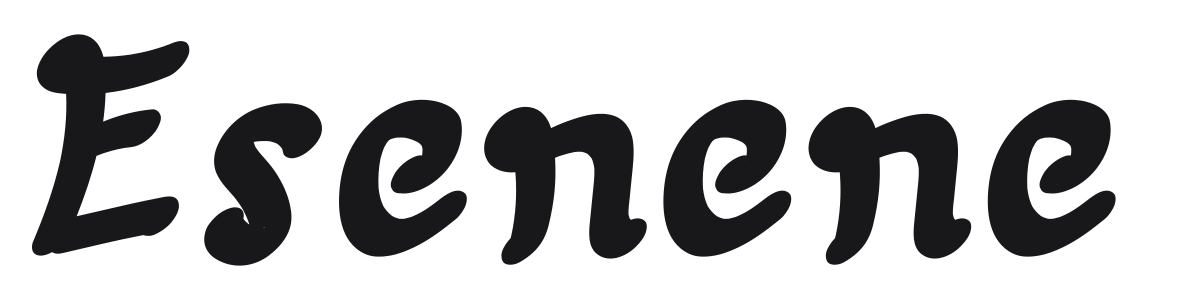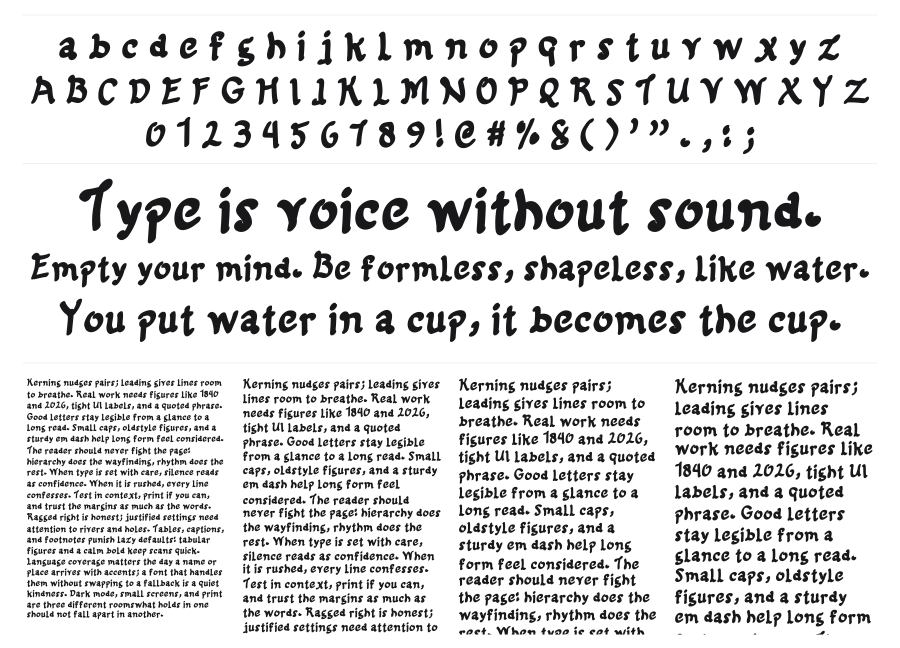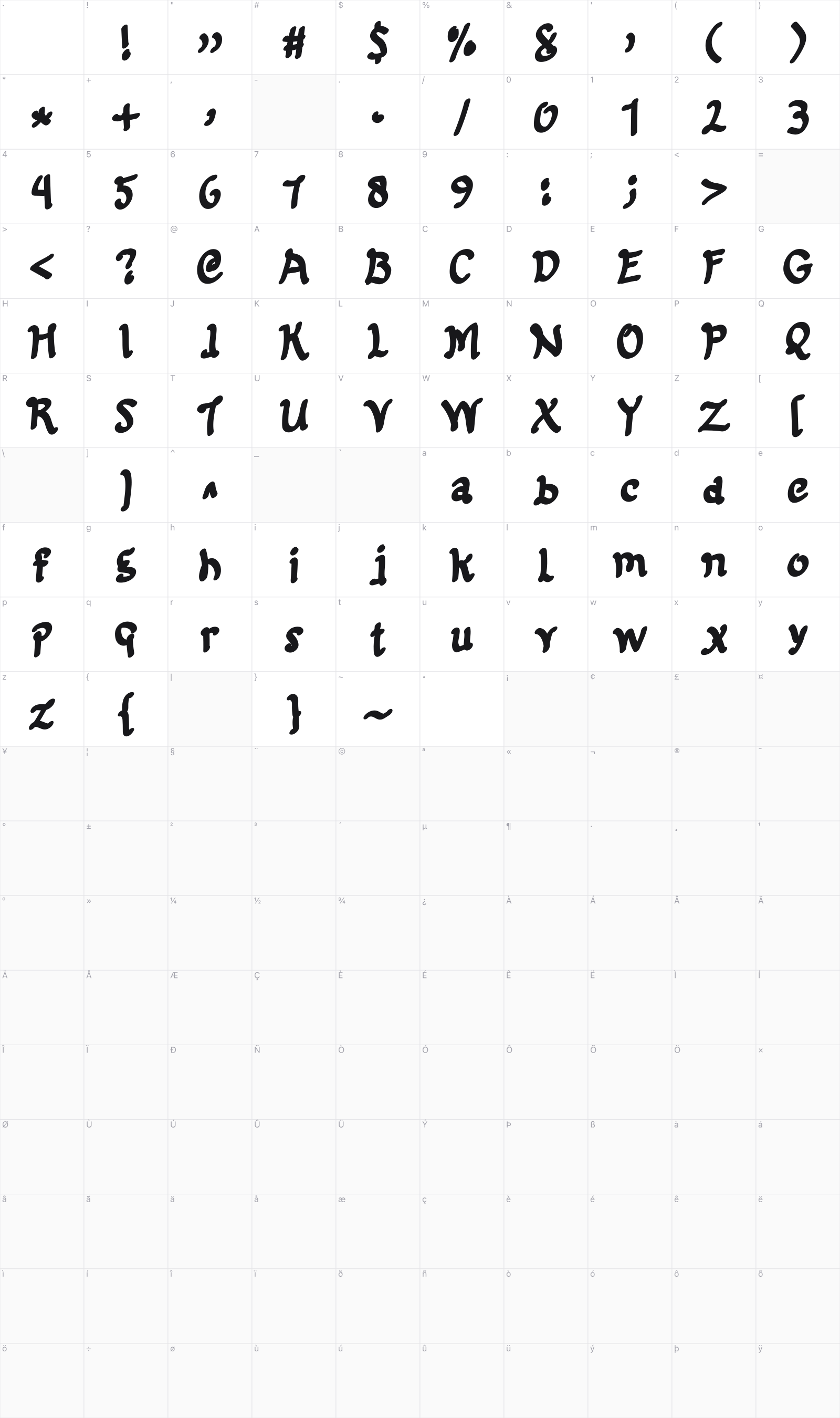
Esenene
Esenene is a bold casual script with thick, rounded strokes and an easygoing hand-lettered rhythm. The low stroke contrast and soft terminals keep it feeling warm and approachable rather than polished or formal. It reads well at large sizes for logos, packaging, wedding stationery, and social media graphics.